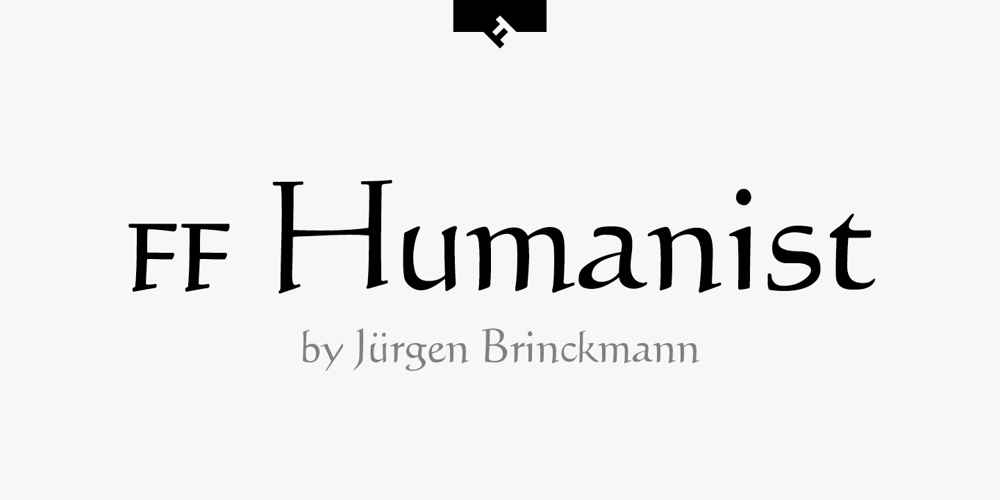
FF Humanist Font Family was designed by Jürgen Brinckmann and published by FontFont. FF Humanist contains 1 styles and family package options. German type designer Jürgen Brinckmann created this blackletter FontFont in 1993. The font is ideally suited for advertising and packaging, poster and billboards as well as software and gaming. FF Humanist provides advanced typographical support with features such as ligatures, small capitals, alternate characters, case-sensitive forms, and stylistic alternates. It comes with proportional oldstyle figures.